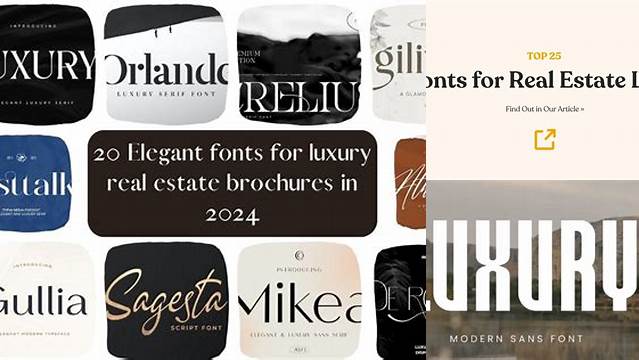
Best Real Estate Fonts On DaFont: Free Options & Tips
Are you searching for the perfect font to elevate your real estate branding? Look no further than DaFont, a treasure trove of free fonts that can help you make a lasting impression. In this comprehensive guide, we'll delve into the world of real estate fonts available on DaFont, exploring various styles, providing tips on font selection, and showcasing examples of effective font pairings. Whether you're designing a logo, creating marketing materials, or revamping your website, the right font can make all the difference in attracting potential clients and conveying professionalism.
Why Font Choice Matters in Real Estate
In the realm of real estate, first impressions are paramount, and your choice of font plays a pivotal role in shaping those impressions. Think about it, guys – your font is the visual voice of your brand, communicating your values, personality, and professionalism. A well-chosen font can exude trustworthiness and reliability, essential qualities in the real estate industry, while a poorly chosen font can inadvertently convey unprofessionalism or even untrustworthiness. Imagine using a playful, cartoonish font for a high-end luxury property listing; it simply wouldn't resonate with the target audience. Instead, a clean, sophisticated font would better reflect the exclusivity and elegance of the properties.
Fonts evoke emotions and associations. A classic serif font like Times New Roman might project a sense of tradition and stability, making it suitable for established real estate firms with a long history. On the other hand, a modern sans-serif font like Open Sans might convey innovation and a forward-thinking approach, appealing to a younger, tech-savvy clientele. The key is to align your font choice with your brand identity and the specific message you want to communicate. Consider your target audience, the type of properties you represent, and the overall image you want to project. Are you targeting first-time homebuyers, luxury investors, or commercial clients? Each audience may respond differently to various font styles. By carefully selecting fonts that resonate with your target market, you can enhance your brand recognition and attract the right clients.
Furthermore, font choice significantly impacts readability and visual appeal. In the real estate industry, where you often have limited time to capture a potential client's attention, clarity is crucial. A font that is difficult to read, whether due to its intricate design or small size, can deter potential clients from engaging with your materials. Imagine a brochure with dense text in a cramped, illegible font; most people would simply skip over it. Opt for fonts that are clear, legible, and easy on the eyes, ensuring that your message is easily understood and appreciated. Consider the font size, line height, and letter spacing to optimize readability. Experiment with different font combinations to create a visually appealing and balanced design. By prioritizing readability, you ensure that your message is effectively communicated and that your marketing materials make a lasting impression.
Exploring Font Styles on DaFont for Real Estate
DaFont offers a vast array of fonts, each with its unique character and style. Navigating this diverse collection can be daunting, but understanding the fundamental font categories can help you narrow your search and find the perfect fonts for your real estate needs. Let's explore some of the most relevant font styles for the real estate industry:
Serif Fonts: Serif fonts are characterized by the small decorative strokes, known as serifs, at the ends of the letter strokes. These fonts are often associated with tradition, authority, and elegance. In the real estate context, serif fonts can convey stability, trustworthiness, and a sense of established professionalism. Popular serif fonts on DaFont include classics like Times New Roman, Georgia, and Baskerville. These fonts are particularly well-suited for conveying a sense of heritage and sophistication, making them ideal for branding luxury properties or established real estate firms. Imagine a logo featuring a serif font paired with a timeless design; it instantly communicates a sense of legacy and credibility. Serif fonts are also excellent choices for body text, as their readability makes them easy on the eyes for longer passages.
Sans-Serif Fonts: Sans-serif fonts, as the name suggests, lack the serifs found in serif fonts. They have a cleaner, more modern appearance, often associated with innovation, simplicity, and efficiency. Sans-serif fonts are well-suited for conveying a contemporary and forward-thinking image, making them a great choice for real estate agencies targeting a younger or tech-savvy clientele. DaFont offers a wide range of sans-serif fonts, including popular options like Arial, Helvetica, and Open Sans. These fonts are versatile and can be used for a variety of applications, from logos and headings to website text and marketing materials. Imagine a website using a clean sans-serif font for its navigation menu and headings; it creates a sleek and modern user experience. Sans-serif fonts are also excellent choices for digital applications, as their clear lines and readability make them easy to view on screens.
Script Fonts: Script fonts mimic the flowing strokes of handwriting, adding a touch of personality and elegance to your designs. These fonts can be ideal for conveying a sense of warmth, friendliness, and personal connection. However, it's crucial to use script fonts sparingly and with caution, as they can be less legible than serif or sans-serif fonts, especially in large blocks of text. On DaFont, you'll find a variety of script fonts, ranging from formal and calligraphic to casual and handwritten. Consider using a script font for your logo or tagline to add a personal touch, but avoid using it for body text. A well-chosen script font can elevate your brand identity and make it more memorable, but readability should always be a primary concern. Imagine a real estate agent's business card featuring their name in a stylish script font; it creates a personal and memorable impression.
Display Fonts: Display fonts are designed to make a statement. They often feature unique and eye-catching designs, making them ideal for headings, titles, and other prominent elements. Display fonts can add personality and flair to your branding, but it's crucial to use them judiciously to avoid overwhelming your designs. DaFont offers a vast selection of display fonts, ranging from bold and geometric to whimsical and decorative. When selecting a display font for your real estate business, consider your brand identity and target audience. A bold, modern display font might be suitable for a contemporary real estate agency, while a more classic display font might be a better fit for a traditional firm. Use display fonts sparingly to create visual interest and emphasis, and always pair them with more legible fonts for body text.
Tips for Selecting the Right Fonts
Choosing the right fonts for your real estate branding can feel like a daunting task, but by following a few key principles, you can make informed decisions that enhance your brand identity and attract your target audience. Here are some essential tips to guide your font selection process:
Define Your Brand Identity: Before diving into the world of fonts, take the time to clearly define your brand identity. What are your brand values? What is your target audience? What message do you want to convey? Your fonts should align with your brand personality and contribute to a cohesive visual identity. Are you a luxury real estate agency targeting high-end clients? Or are you a boutique firm specializing in first-time homebuyers? Your font choices should reflect your brand's unique character and appeal to your target audience. For example, a sophisticated serif font might be ideal for a luxury brand, while a clean sans-serif font might be more appropriate for a modern and approachable brand. By understanding your brand identity, you can narrow your font choices and select fonts that effectively communicate your message.
Consider Readability: Readability is paramount, especially in the real estate industry where you often have limited time to capture a potential client's attention. Choose fonts that are clear, legible, and easy on the eyes, both in print and on screen. Avoid overly decorative or complex fonts that can be difficult to read, especially in large blocks of text. Consider the font size, line height, and letter spacing to optimize readability. Test your font choices in different contexts, such as on your website, brochures, and business cards, to ensure they are legible and visually appealing. A font that looks great in a headline might not be suitable for body text, so it's essential to assess readability in various applications. Prioritizing readability ensures that your message is effectively communicated and that your marketing materials make a positive impression.
Limit Your Font Choices: While it can be tempting to use a variety of fonts to create visual interest, it's generally best to limit your font choices to two or three fonts per design. Too many fonts can create a cluttered and unprofessional look. Choose one or two primary fonts for headings and body text, and consider using a third font sparingly for accents or special elements. A consistent font palette creates a cohesive and professional brand identity. Think of your fonts as a family; they should complement each other and work together harmoniously. A well-chosen font pairing can elevate your design, while a mismatched pairing can create a jarring and unprofessional effect. By limiting your font choices, you can create a clean and consistent visual identity that reinforces your brand message.
Explore Font Pairings: Combining different fonts can create visual interest and hierarchy in your designs. However, it's crucial to choose fonts that complement each other and work well together. A classic approach is to pair a serif font with a sans-serif font, creating a balance between tradition and modernity. For example, you might pair a serif font like Georgia for headings with a sans-serif font like Open Sans for body text. Consider the contrast between your chosen fonts; do they have similar weights and styles, or do they offer a distinct visual difference? Experiment with different font pairings to find combinations that resonate with your brand identity and create a visually appealing design. Online resources and font pairing tools can provide inspiration and guidance, but ultimately, your font choices should reflect your brand's unique personality and message.
Test Your Fonts: Before finalizing your font choices, test them in various applications and formats. Print out samples of your designs to see how the fonts appear in print, and view them on different screens to assess their readability online. Consider how the fonts will look in different sizes and weights. A font that looks great in a large headline might not be legible in smaller body text. Obtain feedback from colleagues and potential clients to get their perspectives on your font choices. A fresh pair of eyes can often identify issues that you might have overlooked. Testing your fonts ensures that they are effective in all contexts and that they contribute to a positive user experience. By taking the time to test your fonts, you can avoid costly mistakes and ensure that your branding materials make a lasting impression.
Effective Font Pairings for Real Estate
Font pairing, guys, is like a delicate dance – you need to find two fonts that complement each other without stepping on each other's toes. In the world of real estate, effective font pairings can elevate your brand, creating a visual identity that's both professional and appealing. Here are some tried-and-true font pairings that work wonders in the real estate industry:
Serif and Sans-Serif Harmony: This classic pairing is a go-to for a reason. Serif fonts bring a touch of tradition and authority, while sans-serif fonts offer a modern and clean feel. Think of pairing a sophisticated serif like Playfair Display for your headings with the approachable sans-serif Montserrat for your body text. This combo strikes a perfect balance, making your brand feel both established and contemporary. Imagine your website featuring this pairing – the headings grab attention with their elegance, while the body text is easy to read and inviting. This pairing is versatile and works well for a variety of real estate businesses, from luxury agencies to residential specialists.
The Modern Duo: For a sleek and contemporary vibe, try pairing two sans-serif fonts. The key here is to find fonts with subtle differences that create visual interest without clashing. Open Sans and Raleway are a fantastic example. Open Sans is a highly legible and neutral font, making it ideal for body text, while Raleway adds a touch of sophistication with its elegant letterforms, perfect for headings. This pairing is clean, modern, and highly readable, making it an excellent choice for real estate agencies targeting a younger or tech-savvy clientele. Think of marketing materials featuring this duo – they project a sense of innovation and efficiency, qualities that appeal to modern homebuyers.
The Elegant Combination: If you're aiming for a luxurious and sophisticated brand identity, consider pairing two serif fonts. This pairing can exude elegance and timelessness, but it's crucial to choose fonts that complement each other rather than compete. Merriweather and Lora are a winning combination. Merriweather is a sturdy and readable serif, perfect for body text, while Lora adds a touch of refinement with its calligraphic influences, making it ideal for headings. This pairing creates a sense of classic elegance, making it well-suited for luxury real estate brands or agencies specializing in historic properties. Imagine a brochure showcasing this pairing – it instantly conveys a sense of prestige and sophistication.
The Playful Contrast: For a brand that wants to convey a sense of personality and approachability, consider pairing a script font with a simple sans-serif font. However, tread carefully here, guys, as script fonts can be tricky to use effectively. The key is to use the script font sparingly, perhaps for a logo or tagline, and pair it with a highly legible sans-serif font for the rest of your text. Pacifico, a casual and friendly script font, pairs beautifully with Lato, a clean and modern sans-serif. This combination can create a warm and inviting brand identity, perfect for agencies targeting first-time homebuyers or families. Think of a business card featuring this pairing – it projects a sense of friendliness and approachability, making potential clients feel comfortable and welcome.
Downloading and Using Fonts from DaFont
DaFont is a fantastic resource for free fonts, but it's essential to understand the licensing terms before using any font in your projects. Most fonts on DaFont are free for personal use, but commercial use may require a license from the font designer. Always check the licensing information provided with each font to ensure you're using it legally. Here's a quick rundown of how to download and use fonts from DaFont:
Browse and Select: Head over to DaFont's website and explore the vast collection of fonts. Use the categories and search filters to narrow your search and find fonts that match your style. When you find a font you like, click on it to view the details and licensing information.
Download the Font: If the font suits your needs and the license allows for your intended use, click the "Download" button. The font will typically download as a ZIP file.
Install the Font: Extract the ZIP file to access the font files, which are usually in TTF (TrueType Font) or OTF (OpenType Font) format. To install the font on your computer, simply double-click the font file and click the "Install" button (on Windows) or "Install Font" button (on macOS). Alternatively, you can drag and drop the font files into your system's font directory.
Use the Font: Once the font is installed, it will be available in your design software, such as Adobe Photoshop, Illustrator, or InDesign. Simply select the font from the font menu and start using it in your projects.
Respect the License: Always adhere to the font's licensing terms. If you're using a font for commercial purposes, make sure you have the appropriate license. Contact the font designer if you have any questions about the licensing terms.
Conclusion: Making a Lasting Impression with the Right Fonts
Choosing the right fonts is an investment in your brand's success. By carefully selecting fonts that align with your brand identity and resonate with your target audience, you can create a visual identity that's both professional and appealing. DaFont offers a wealth of options, but remember to prioritize readability, limit your font choices, and explore effective font pairings. With a little effort, you can find the perfect fonts to elevate your real estate branding and make a lasting impression. So go ahead, guys, dive into the world of fonts and create a brand that truly stands out!